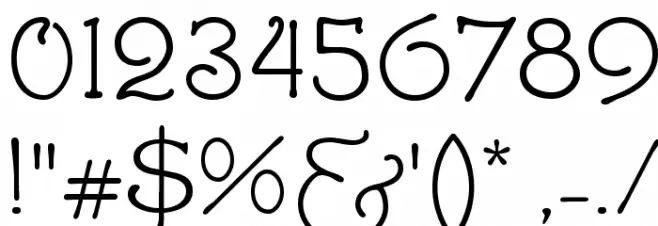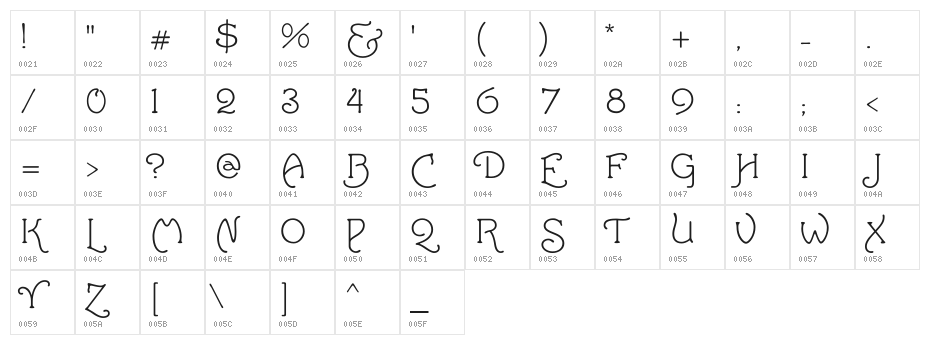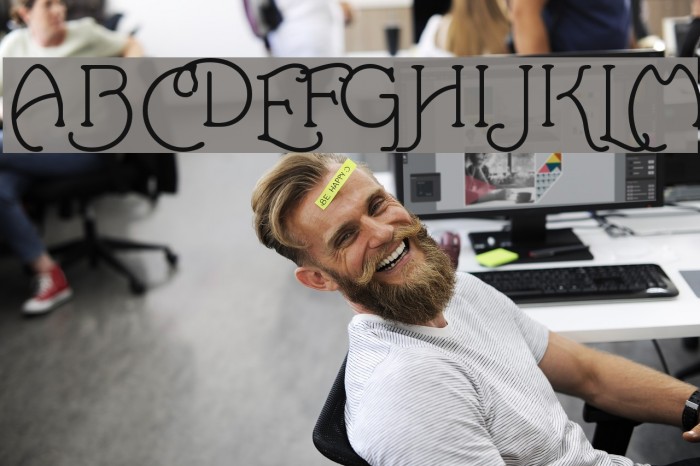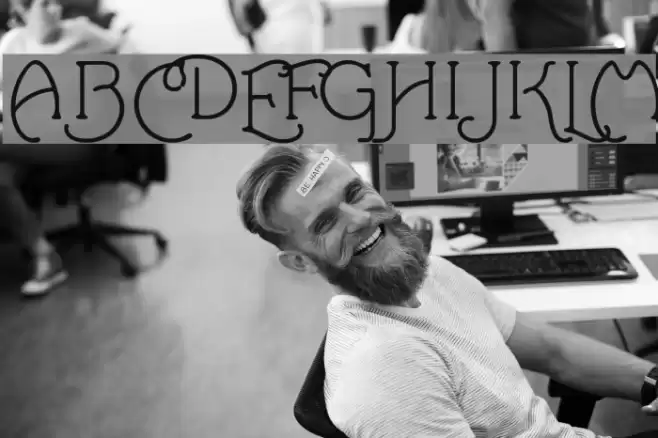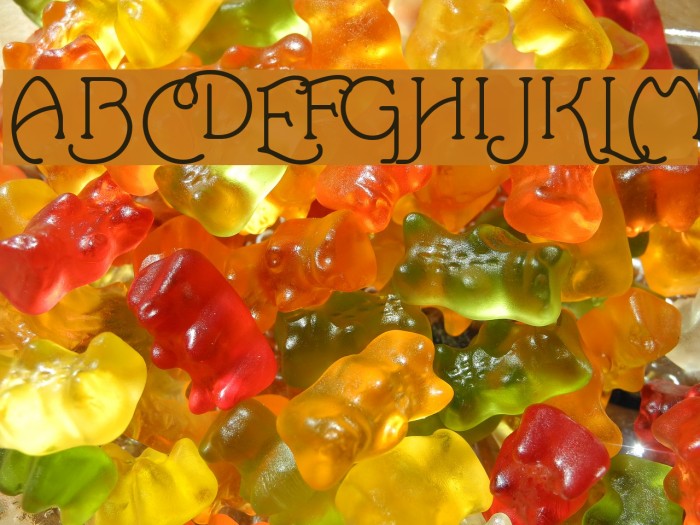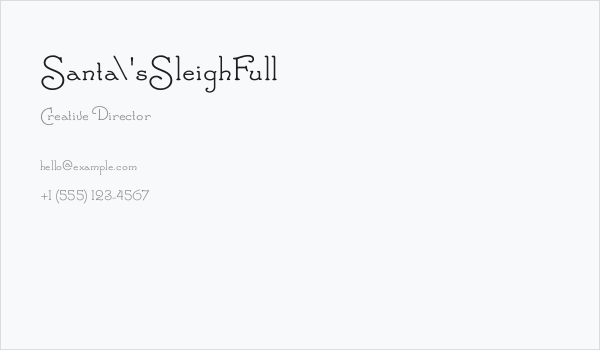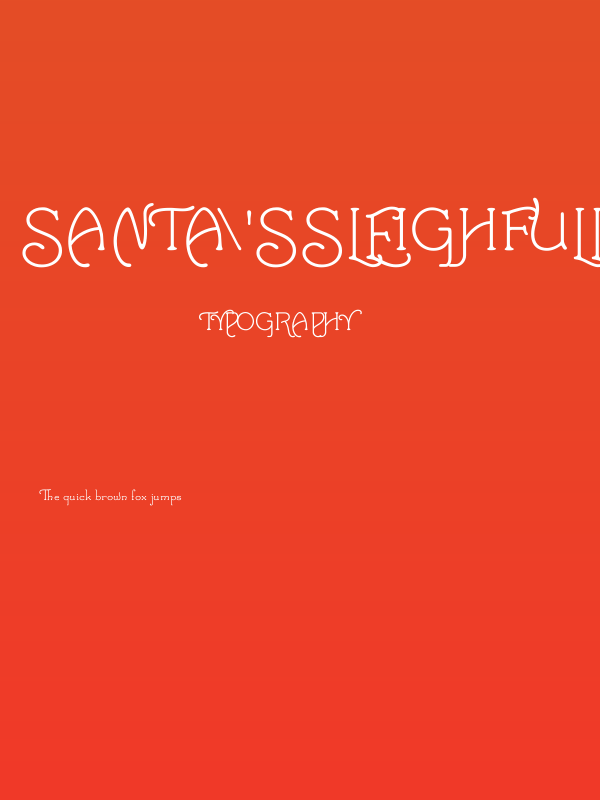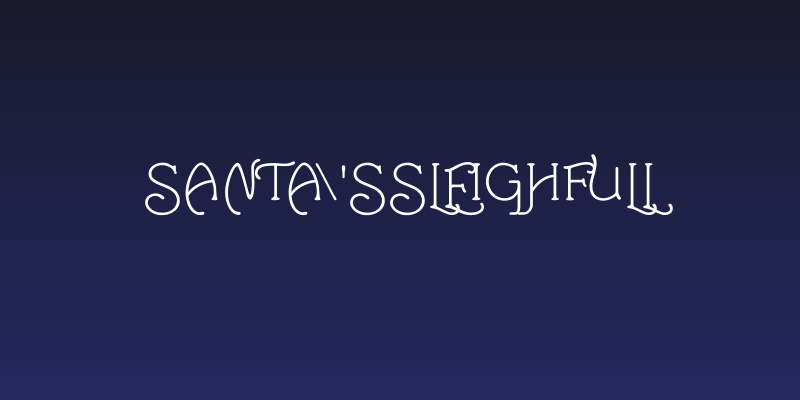
Santa'sSleighFull Font
Santa'sSleighFull Description
This whimsical font features a playful and festive design, reminiscent of holiday cheer and winter festivities. The characters are adorned with subtle curls and swirls, giving them a lively and animated appearance. The uppercase letters are particularly decorative, with unique flourishes that add a touch of elegance and charm. The lowercase letters maintain a consistent style, complementing the uppercase with their own gentle curves. Numbers and special characters follow the same playful theme, ensuring a cohesive look across all text. This font is perfect for capturing the spirit of the holiday season, with its joyful and inviting aesthetic.
| Proposed Projects | Ideal for holiday cards, festive invitations, seasonal advertisements, and decorative signage. |